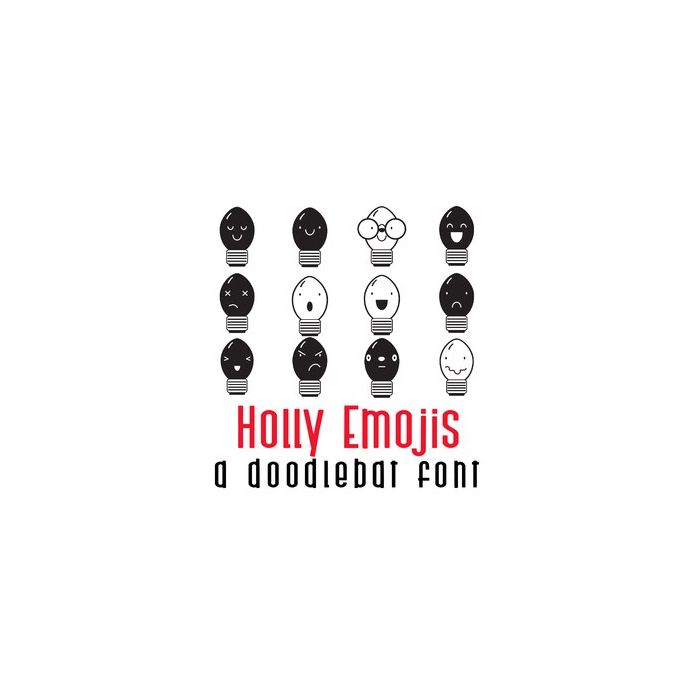
This fun doodle style doodlebat font features 26 holiday light emojis. Perfect for cards, crafts, gifts, decor, scrapbook pages, planner stickers and more!